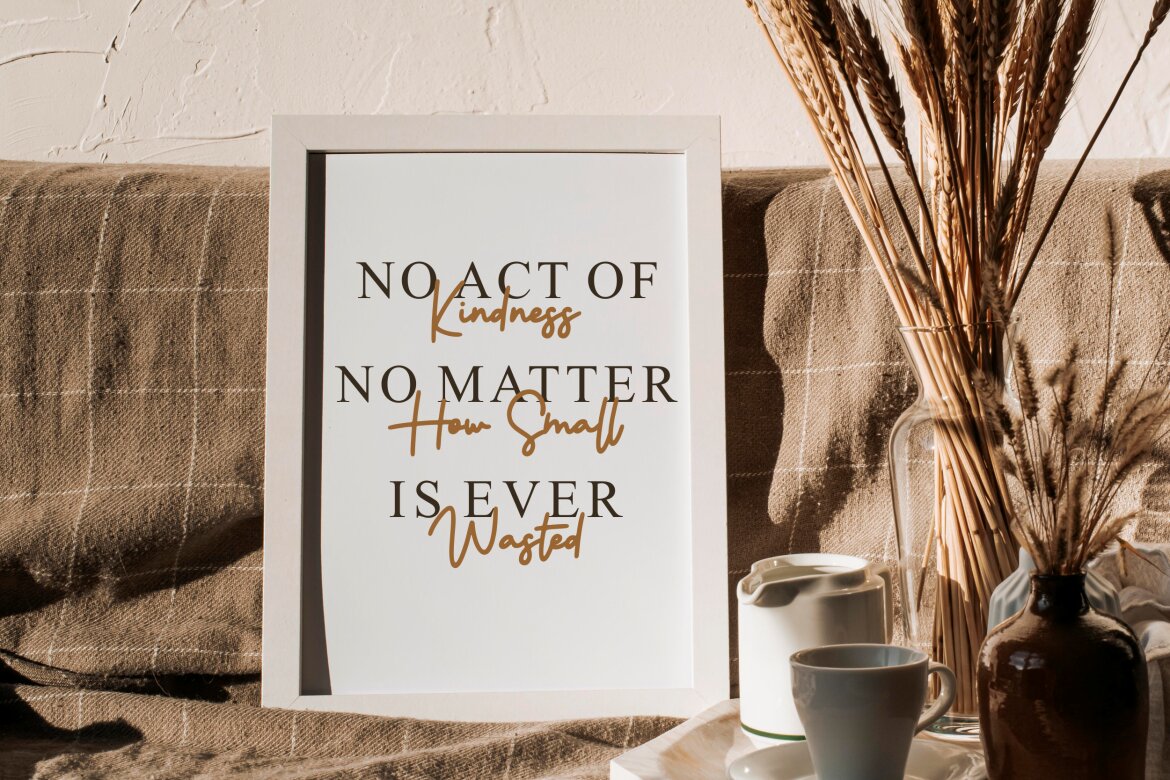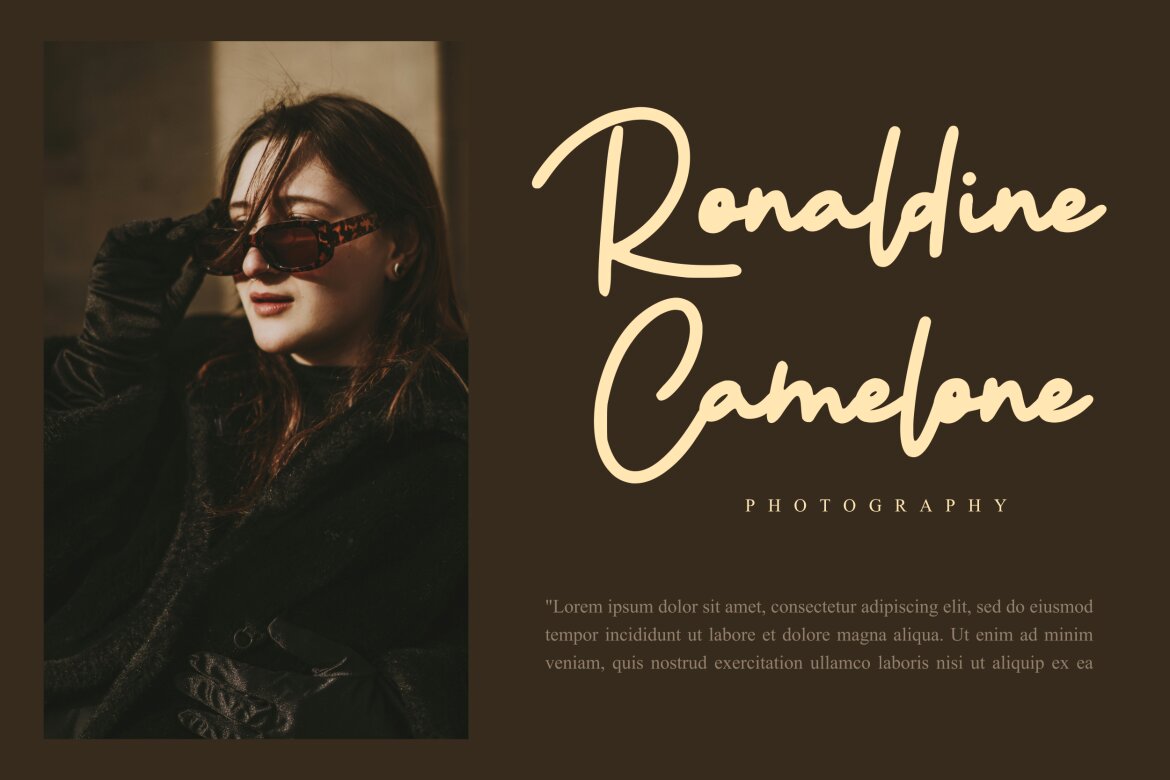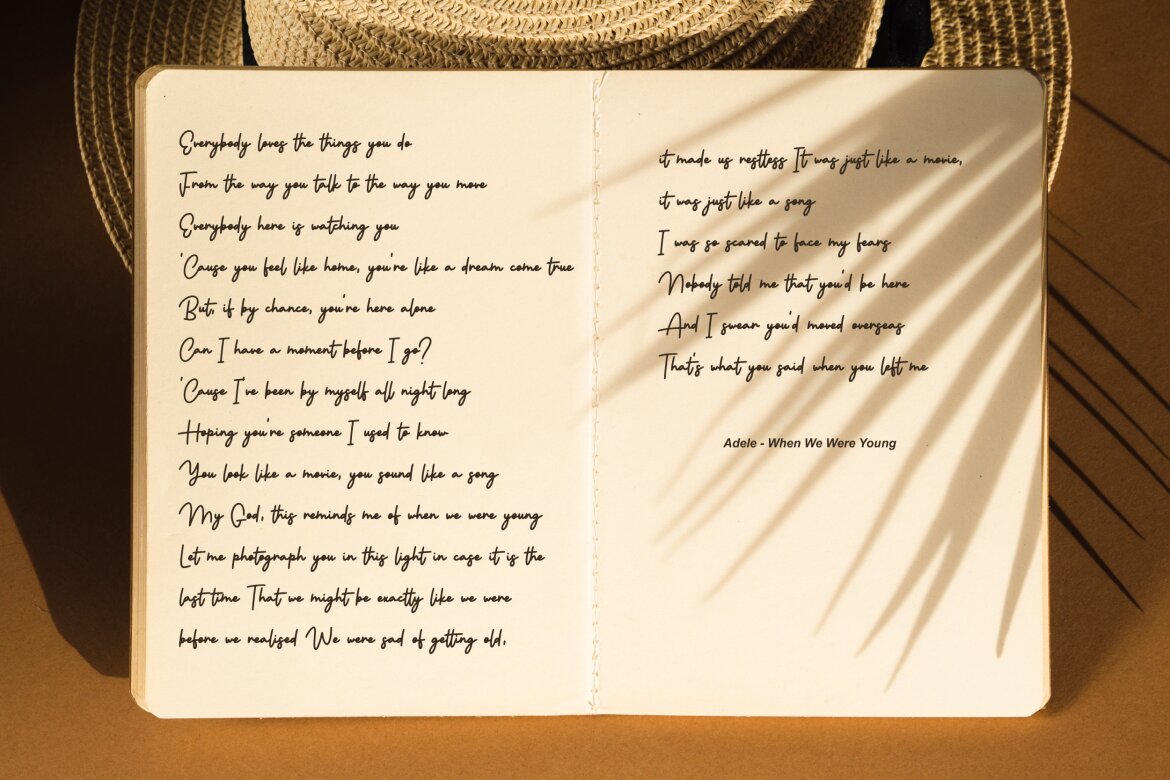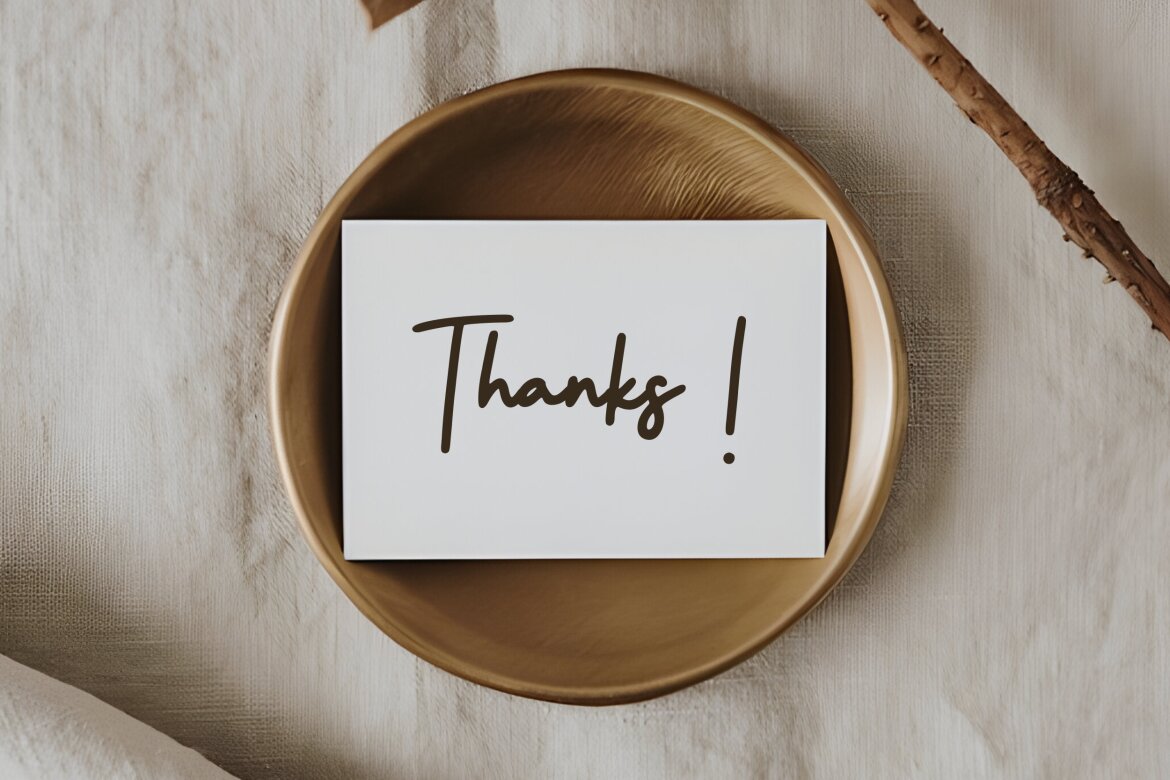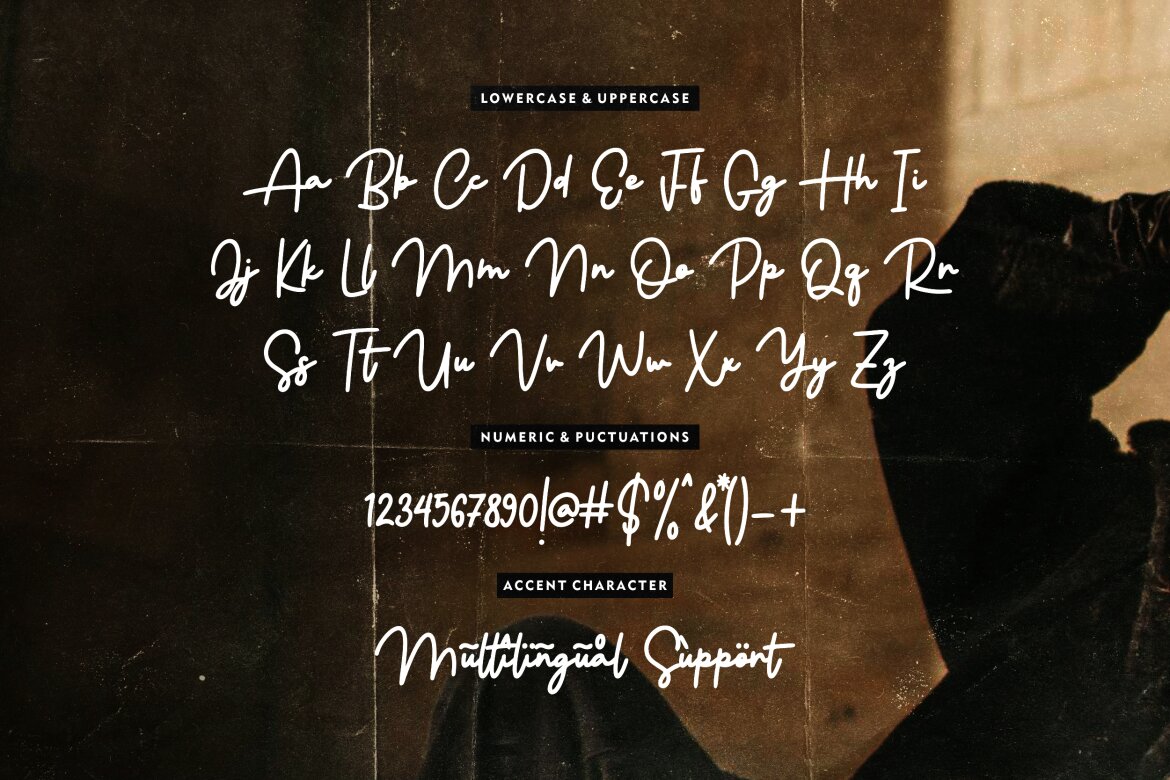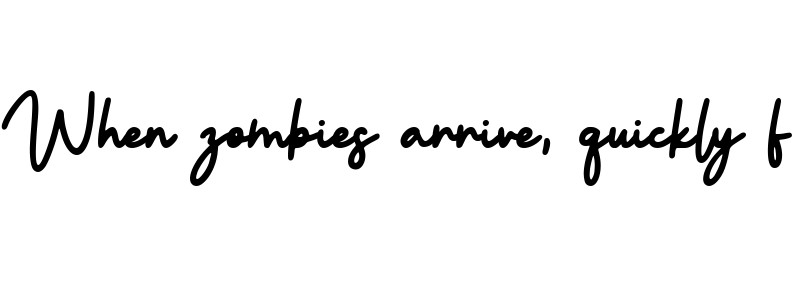
Romanian Signature FREE Font
Romanian Signature
Proudly Present, Romanian Signature Font
Romanian Signature Font, a touch of elegance and style interweaved
Romanian Signature is best for:
• logos, branding, & Signatures.
• Flyers, Album cover, Magazine, & Advertisements.
• Website design , design blogs, & fashion.
• Quote graphics for social media.
• and also it works great for other projects.